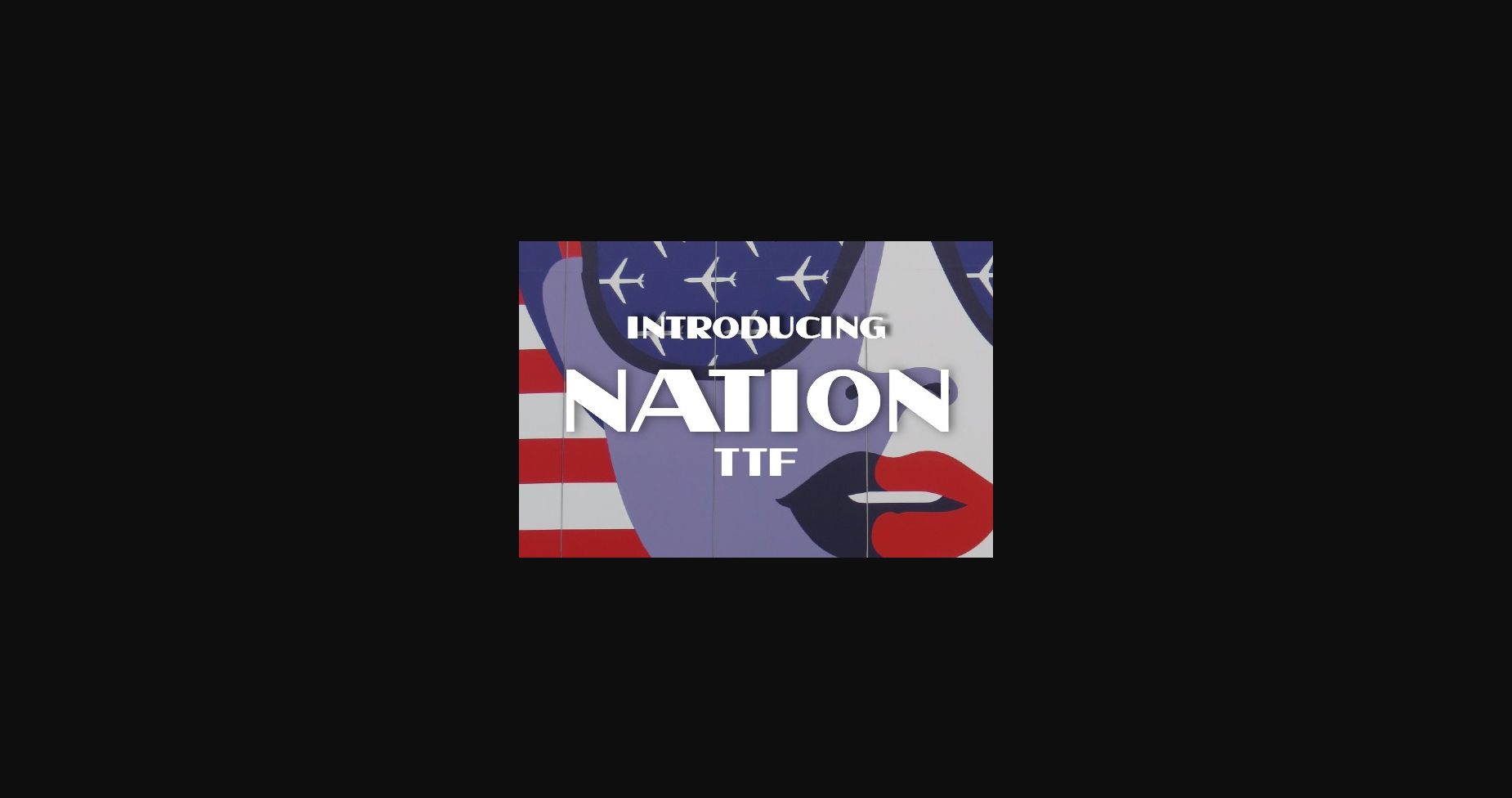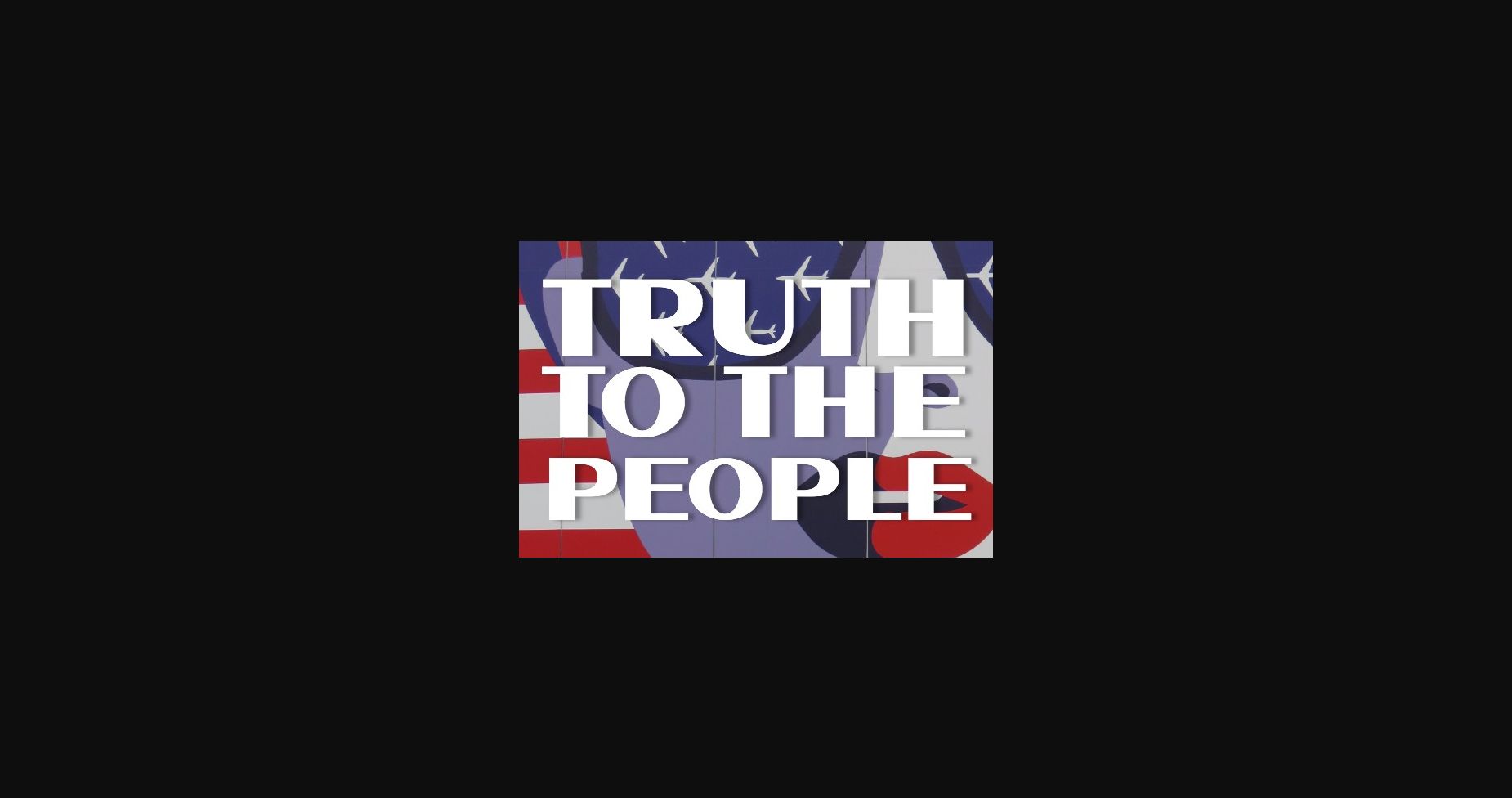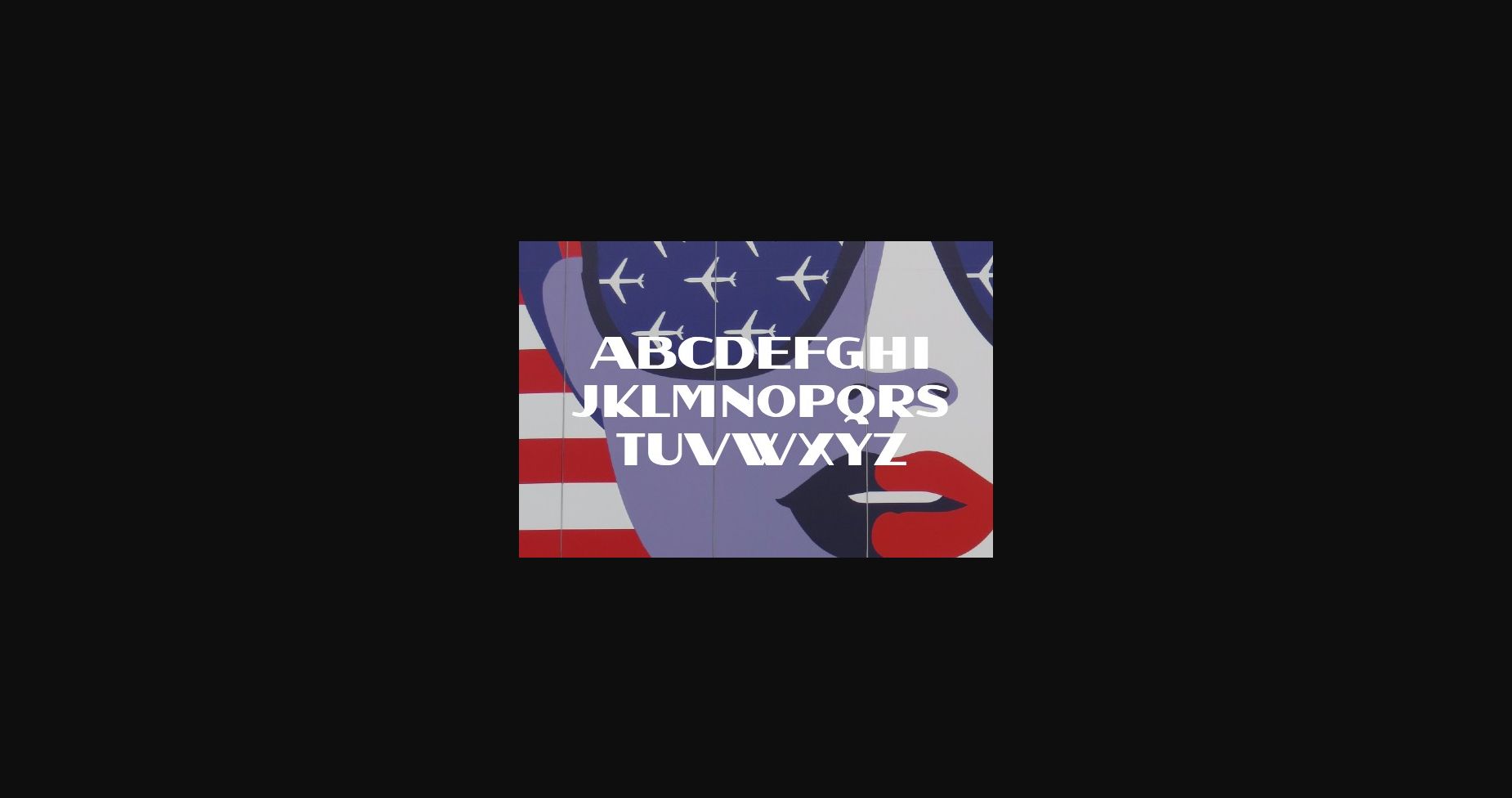
HomeSans Serif FontsNation Font Sans Serif Fonts Nation Font FacebookXPinterestWhatsApp 1 of 5 ... Nation Font Poster 2... Nation Font Poster 3... Nation Font Poster 4... Nation Font Poster 5... About Nation Font Nation is a Bold Sans Serif font that will look awesome on any of your designs. Use this font on posters, flyers, and t-shirts. DOWNLOAD NOW People also explored Hello Daddy Font Basyar Jalai Font Bafera Font Maxwell Slab Intro Sale Font Beauty Font Maleryan Script Font Inspecture Font Qittir Font Axemexa Font 403 0 TagsNationNation Font Previous articleCarol FontNext articleAnolta Font LEAVE A REPLY Cancel reply Comment: Please enter your comment! Name:* Please enter your name here Email:* You have entered an incorrect email address! Please enter your email address here Website: Save my name, email, and website in this browser for the next time I comment. Personal Use Free Fillguy Font Personal Use Free Read more about this font Caramel Latte Personal Use Free Read more about this font Colombia Personal Use Free Read more about this font Electroharmonix Personal Use Free Read more about this font BLOG Using Fonts in Digital Marketing: Tips to Strengthen Your Brand Identity In the realm of digital marketing, every visual element plays a crucial role in shaping a brand's identity, and fonts are no exception. The... How to Install and Use Fonts on Windows, macOS, and Web Projects Modern Sans-Serif Fonts That Brands Love in 2025 Top 7 Google Fonts Alternatives for Faster and Privacy-Friendly Web Design (2025)